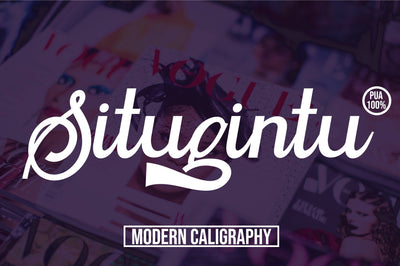
Situgintu Calligraphy
- Full set of extra characters
Situgintu Calligraphy has lots of alternate characters, swashes and ligatures. It has also a bunch of tails with different shapes and widths to give the logotype or sports look to your design. You can design beautiful, elegant and diverse typographic elements with it. It’s well suited for logos, lettering artwork, t-shirt designs, editorial illustrations to name a few.
- Stylistic Alternates
- Standard Ligatures
- Stylistic set SS01-SS07